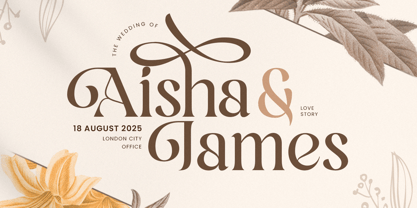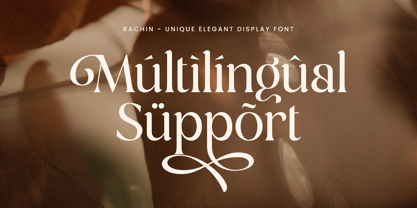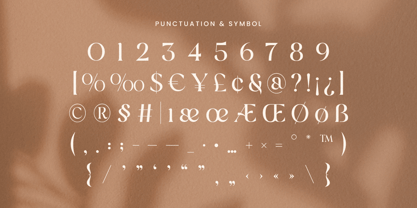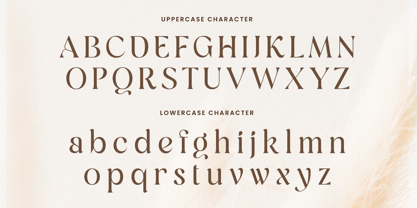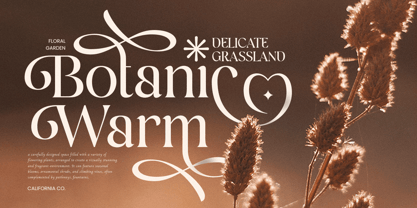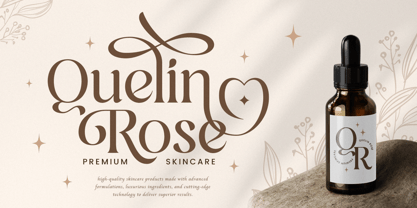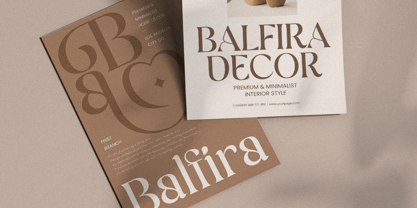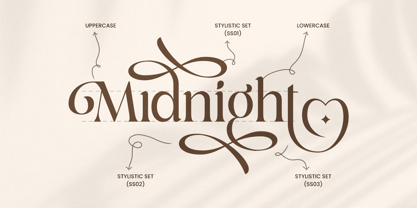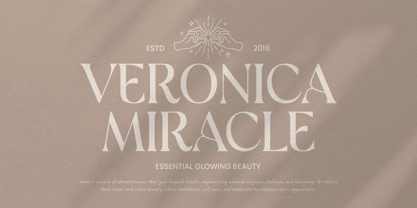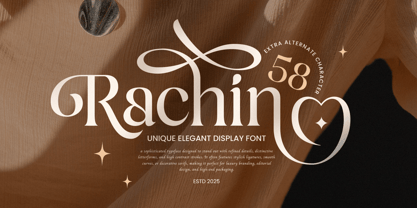
Rachin
by Sensatype Studio
The Rachin Font Family was designed by Zamroni Hamzah and published by Sensatype Studio. Rachin contains 1 styles. More about this family
Rachin is a unique and elegant display font designed to bring sophistication, style, and artistic flair to your designs. With its distinctive letterforms and refined details, this font is ideal for luxury branding, editorial layouts, stylish packaging, fashion headlines, and creative logo designs.
Its bold yet graceful appearance adds a touch of exclusivity and elegance, making it the perfect choice for high-end fashion, premium beauty products, wedding invitations, and artistic typography projects. The combination of classic serif elements with a modern display feel ensures a timeless yet contemporary look that stands out.
Whether you're designing for magazines, upscale branding, social media, or luxury products, Rachin provides the perfect balance of uniqueness and sophistication.
Rachin - Unique Elegant Display Font Features:
• Stylish and unique display serif design
• Perfect for luxury branding, fashion, and editorial use
• Punctuation, numbers, and symbols included
• Uppercase and lowercase letters
• Alternate Characters for advanced typography
Multilingual support for:
Afrikaans, Albanian, Basque, Breton, Catalan, Croatian, Czech, Danish, Dutch, English, Estonian, Finnish, French, Galician, German, Hungarian, Icelandic, Indonesian, Irish, Italian, Latvian, Lithuanian, Luxembourgish, Maltese, Norwegian, Polish, Portuguese, Romanian, Slovak, Slovenian, Spanish, Swedish, Turkish, Welsh, and more.
Elevate your designs with Rachin—the perfect display serif font for stylish and sophisticated projects.